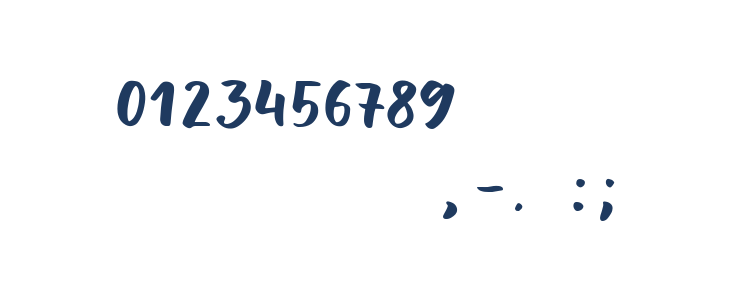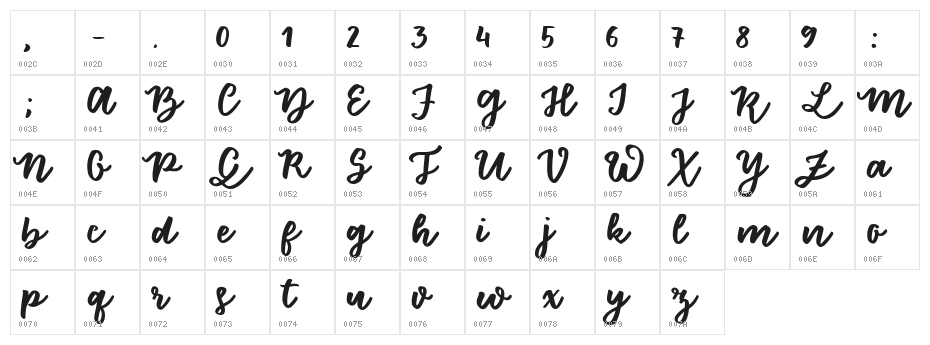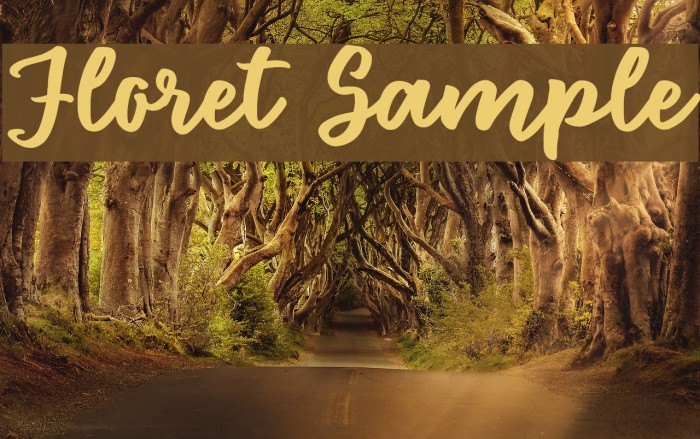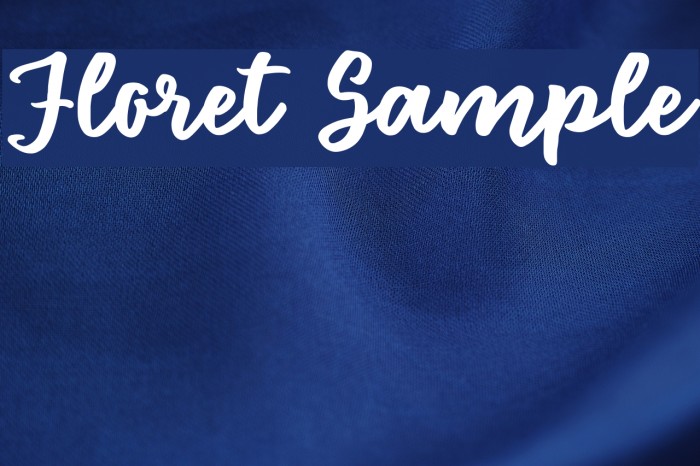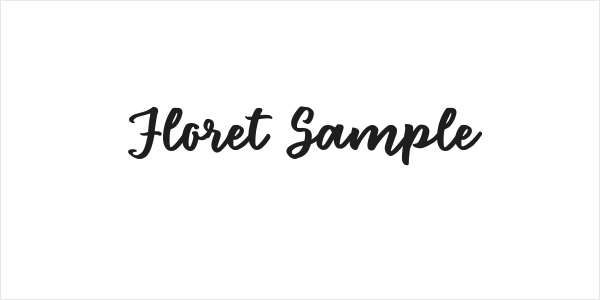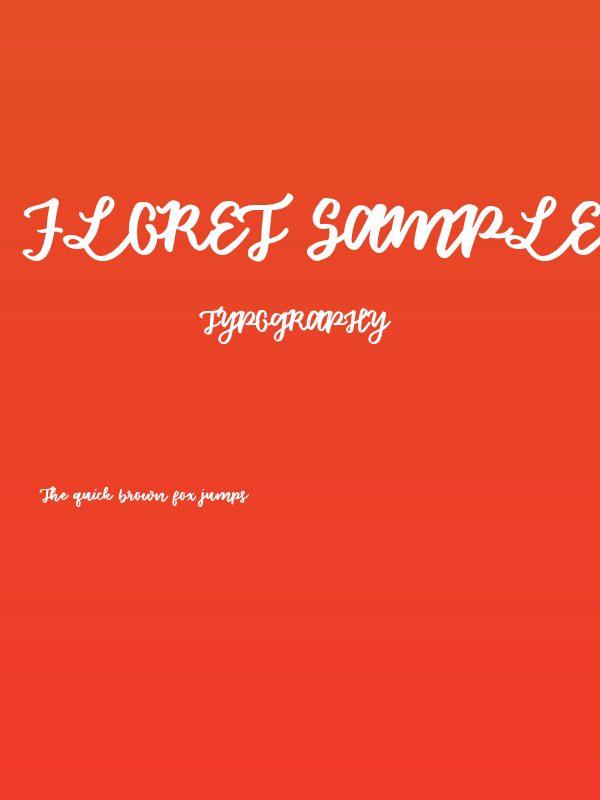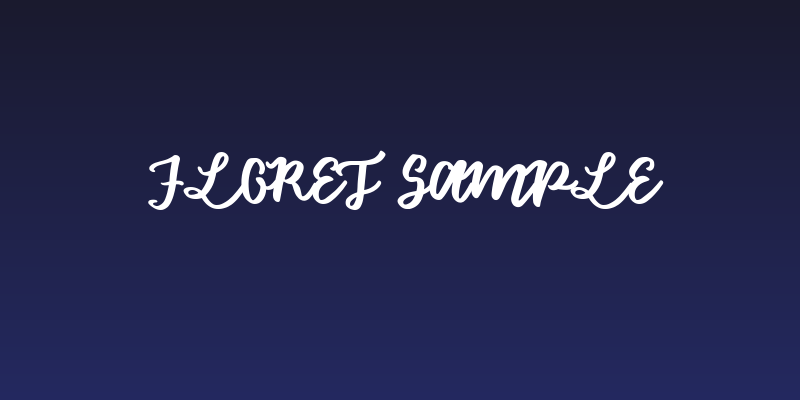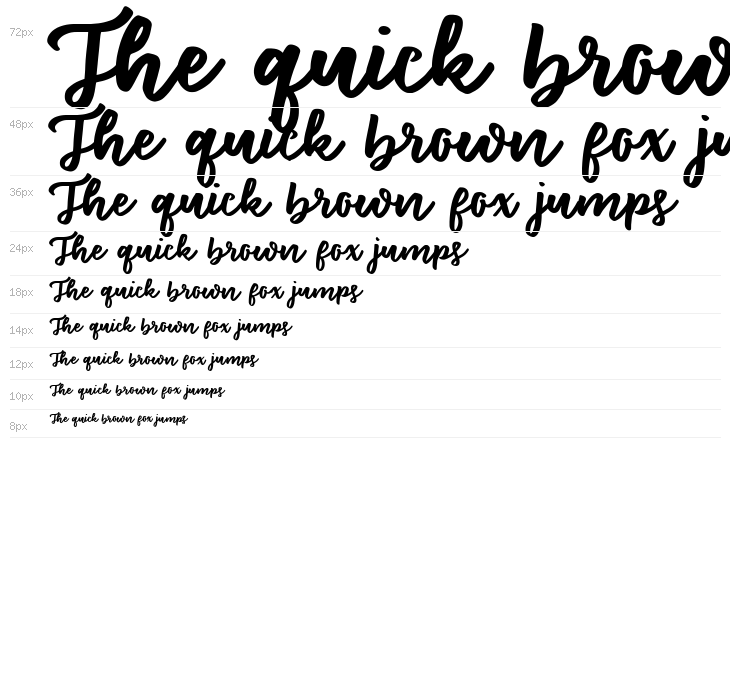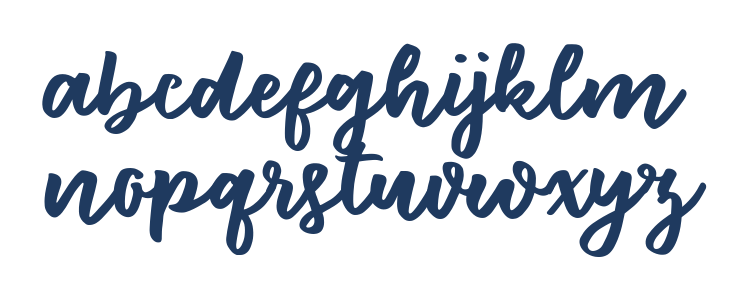
Floret Sample Font
Floret Sample Description
This font features a bold and flowing script style, characterized by its smooth, cursive letterforms that exude elegance and fluidity. The uppercase and lowercase letters are seamlessly connected, creating a harmonious and cohesive appearance. The numbers and special characters maintain the same flowing aesthetic, ensuring consistency across all elements. The strokes are thick and rounded, providing a sense of warmth and approachability. This font is ideal for projects that require a personal touch, such as invitations, greeting cards, and branding materials. Its decorative nature makes it stand out, while the consistent stroke weight ensures readability.
| Use Case | Logos, Headlines, Invitations |
| Proposed Projects | Ideal for invitations, greeting cards, branding, and decorative projects. |